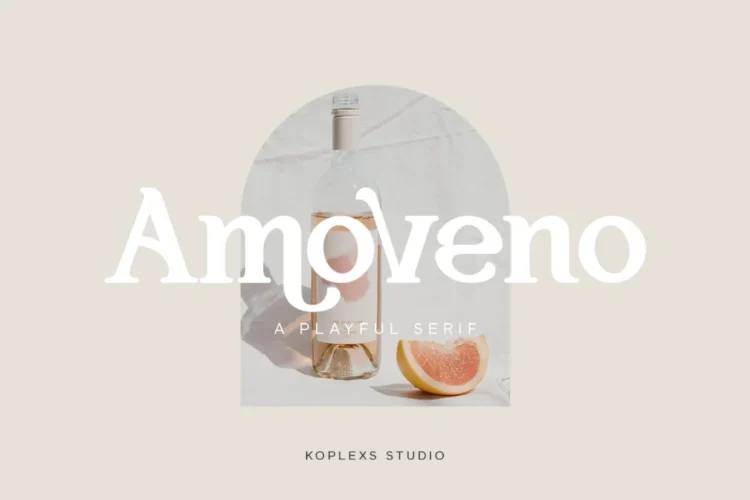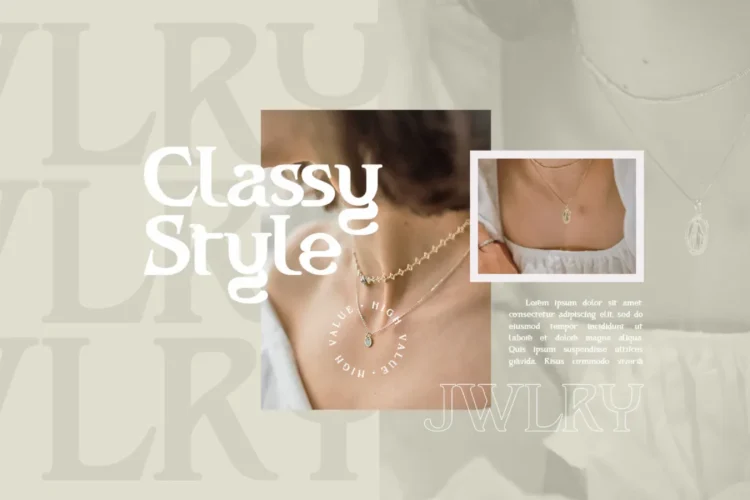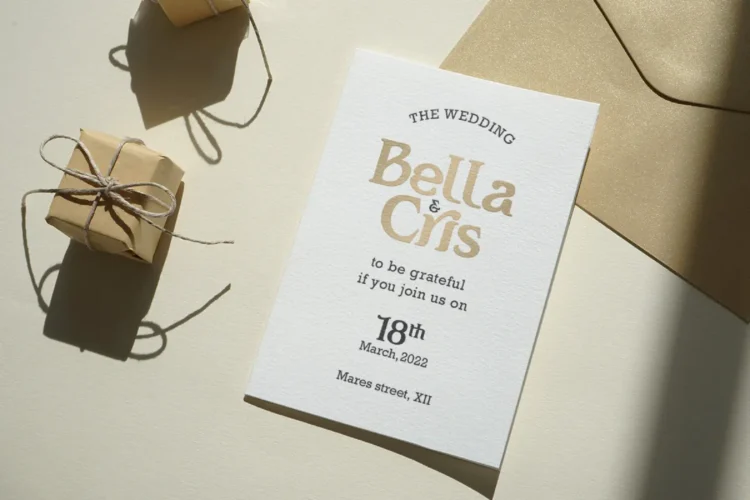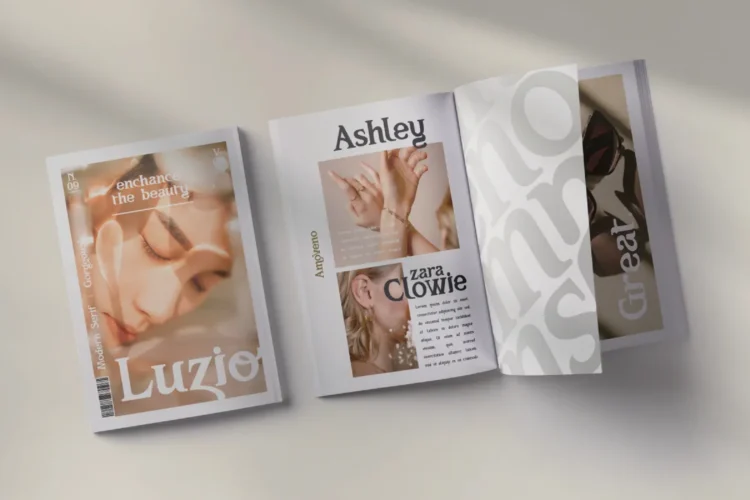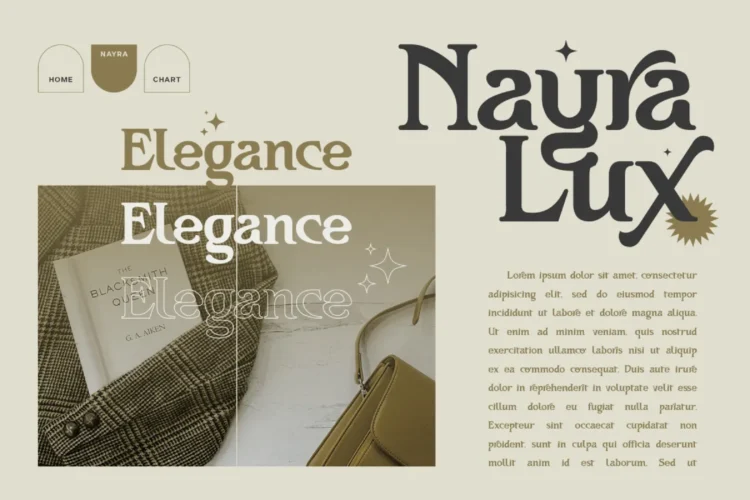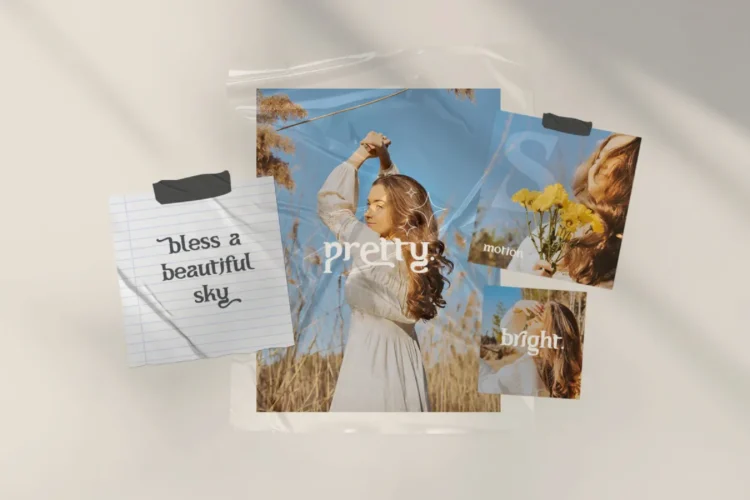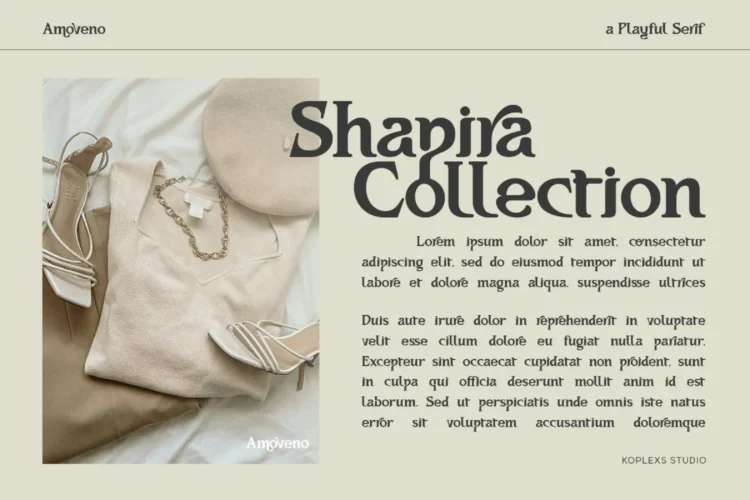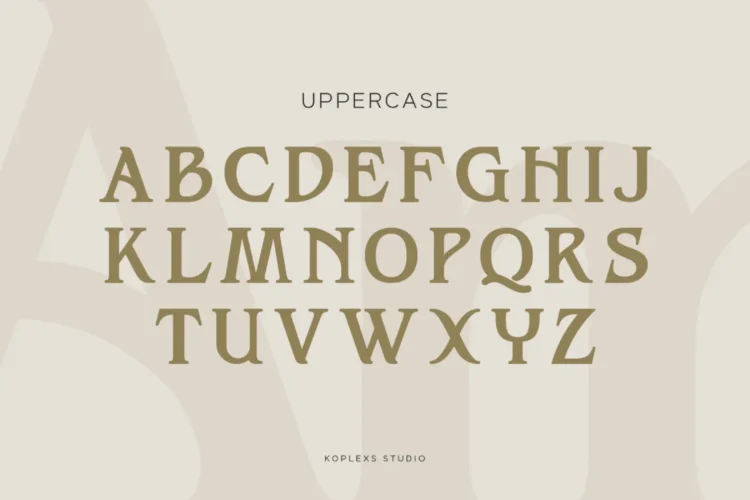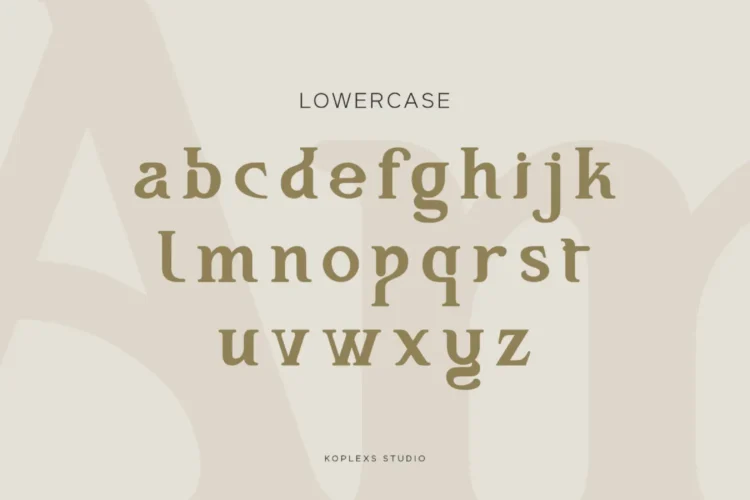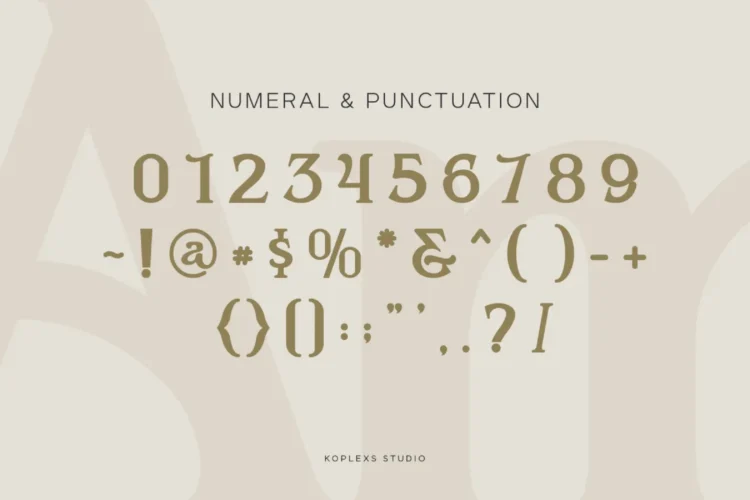
✨ Amoveno Font – A Modern Playful Serif Font for Elegant Branding & Luxury Design
Amoveno Font is a modern serif font crafted with elegance and playfulness, designed by Koplexs Studio. This display font blends classic sophistication with a contemporary twist, making it a perfect aesthetic font for stylish branding projects. Its smooth curves and bold serifs express a timeless character, ideal for creating a premium visual identity.
This cool font works beautifully as a goods font, cosmetic font, and branding font, offering a refined yet approachable tone. The classic font details make it suitable for projects that require a touch of luxury font elegance, while its unique style ensures a modern appeal across digital and print mediums.
Amoveno Font is versatile and works beautifully for :
- 🪶 Logos & Branding – fashion, beauty, lifestyle brands
- 💍 Wedding Invitations – refined & romantic aesthetics
- 📰 Headings & Headlines – editorial or magazine layouts
- 🎨 Posters & Covers – standout typography for visual impact
- 💄 Cosmetic & Product Packaging – elegant brand impressions
- 🖋️ Luxury Design Projects – upscale brand storytelling
Amoveno Font is a perfect poster font, cover font, wedding font, headline font, elegant font, and logo font for anyone seeking a luxury serif font with modern flair and timeless grace.